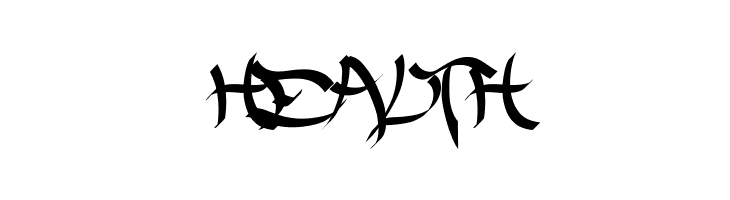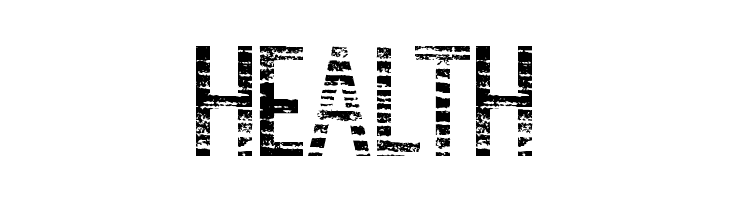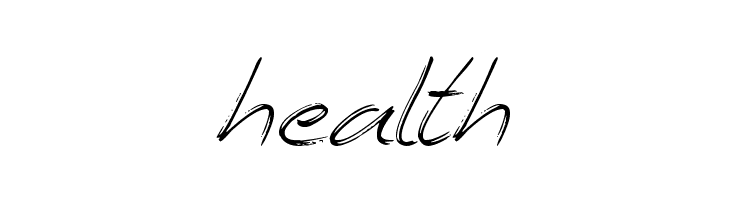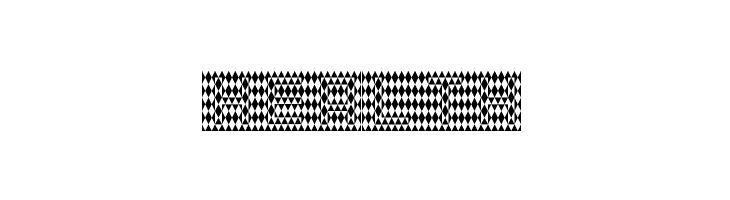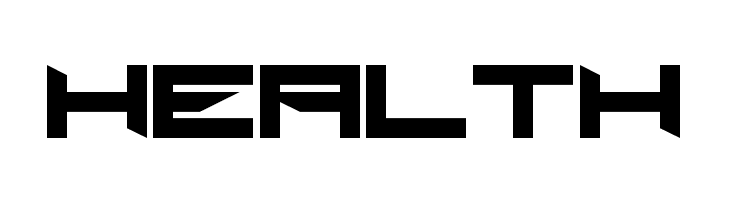
A bold, graffiti-inspired font with sharp, angular strokes and dynamic style.
A bold, graffiti-inspired font with sharp, angular lines and a rebellious aesthetic.
A bold, distressed font with a grunge aesthetic and high contrast.
A bold, angular font with a futuristic and geometric design.
A futuristic, angular font with bold geometric shapes and sharp edges.
A futuristic, geometric font with rounded corners and uniform stroke width.